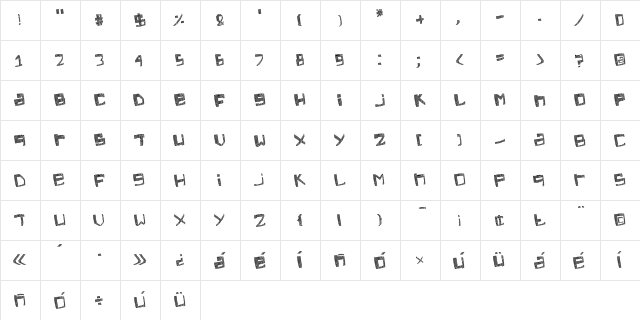
electric feel Font Preview
Design Context for electric feel Typeface
electric feel channels digital-age aesthetics through its sharp, structured letterforms — ideal for brands that want to signal innovation.
Pro Tip: Use electric feel in combination with a neutral sans for body text. Let it define the brand voice in headlines while keeping reading comfortable elsewhere.